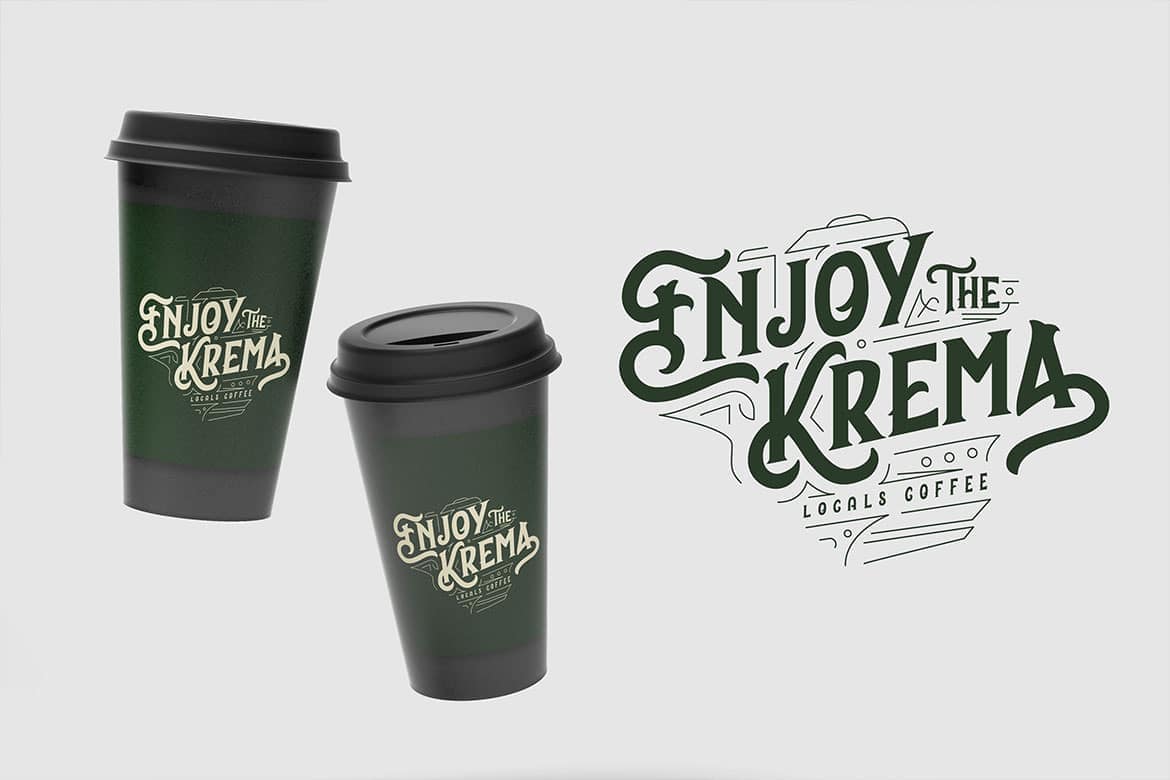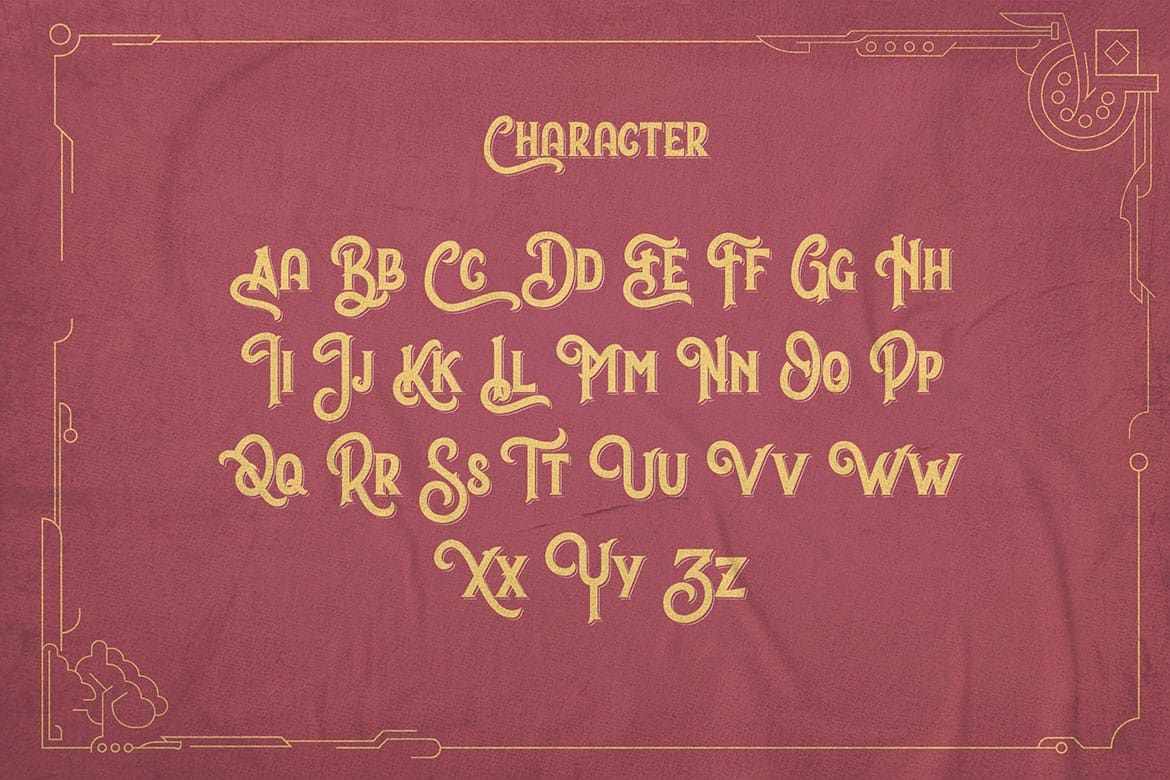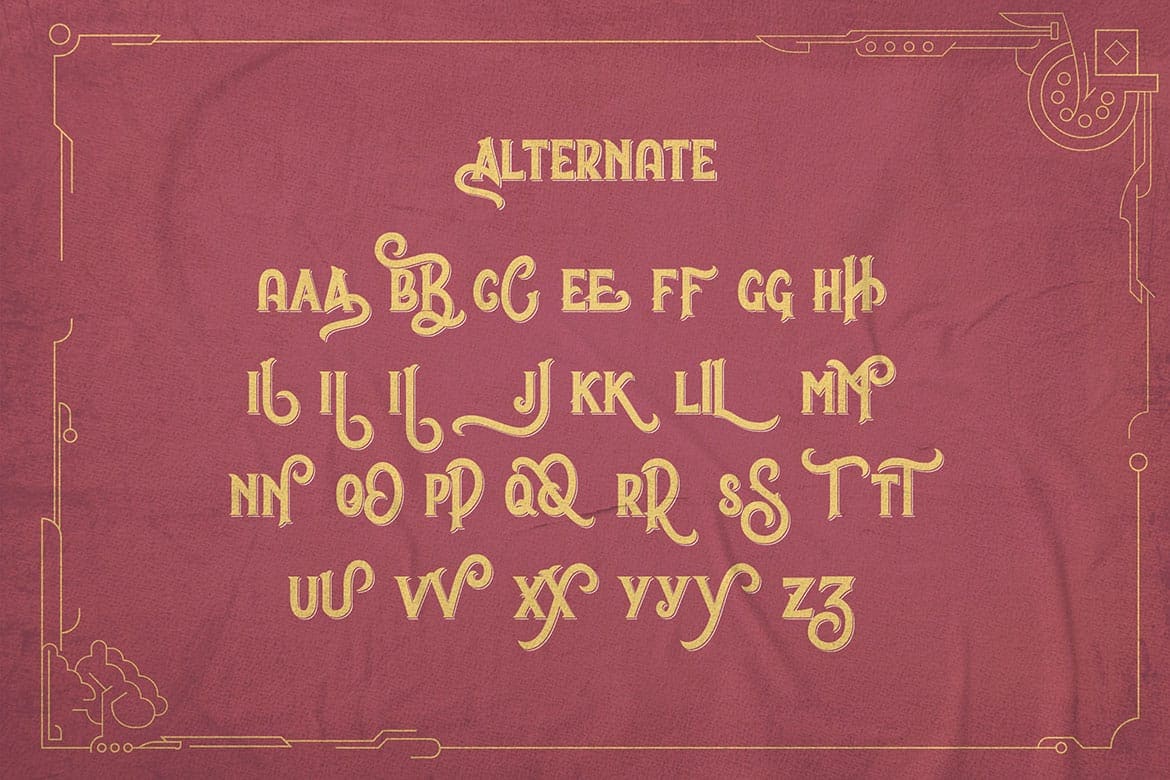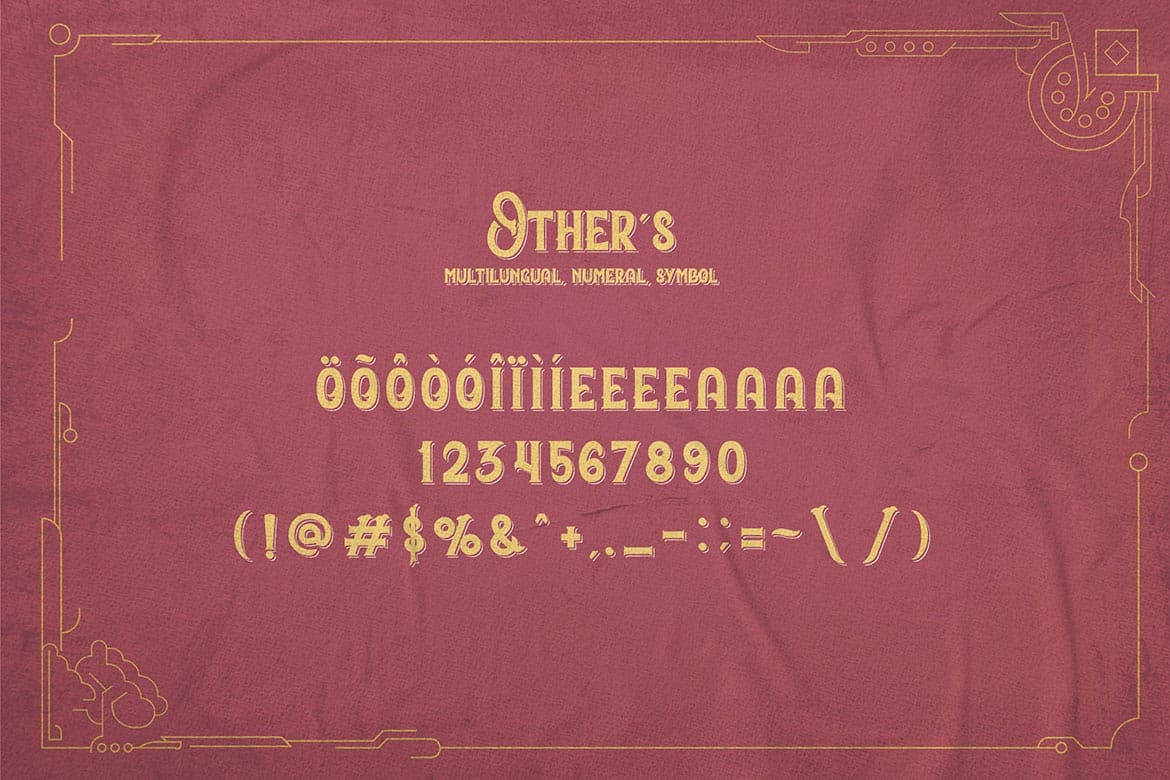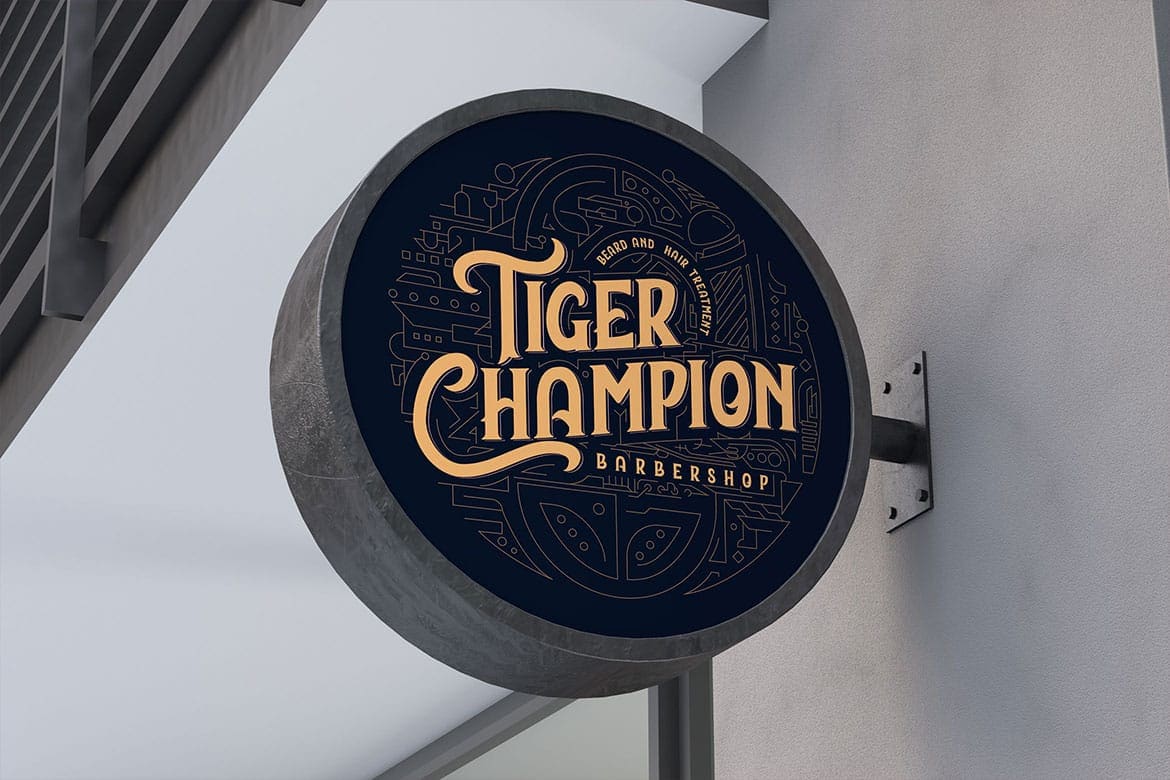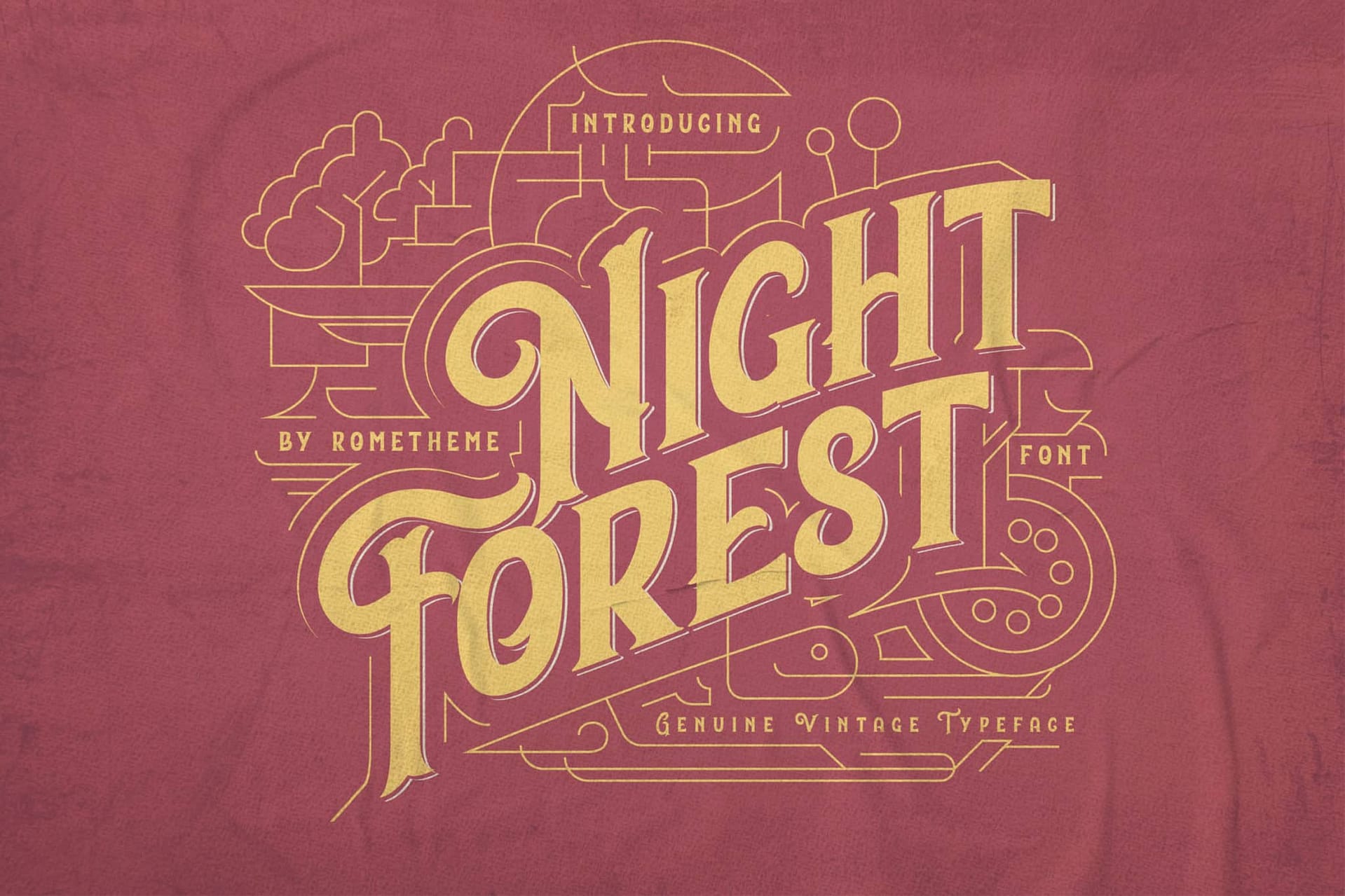
Night Forest – Vintage Font. This font looks modern, cute, fancy, readable, stylish, catchy and easy to use. It’s a great font for fashion, apparel projects, signature, album cover, logo, branding, magazine, social media, & advertisements, but also works great for other projects.
• Basic Latin A-Z and a-z
• Numbers
• Punctions
• Multilingual Support
Night Forest – Vintage Font